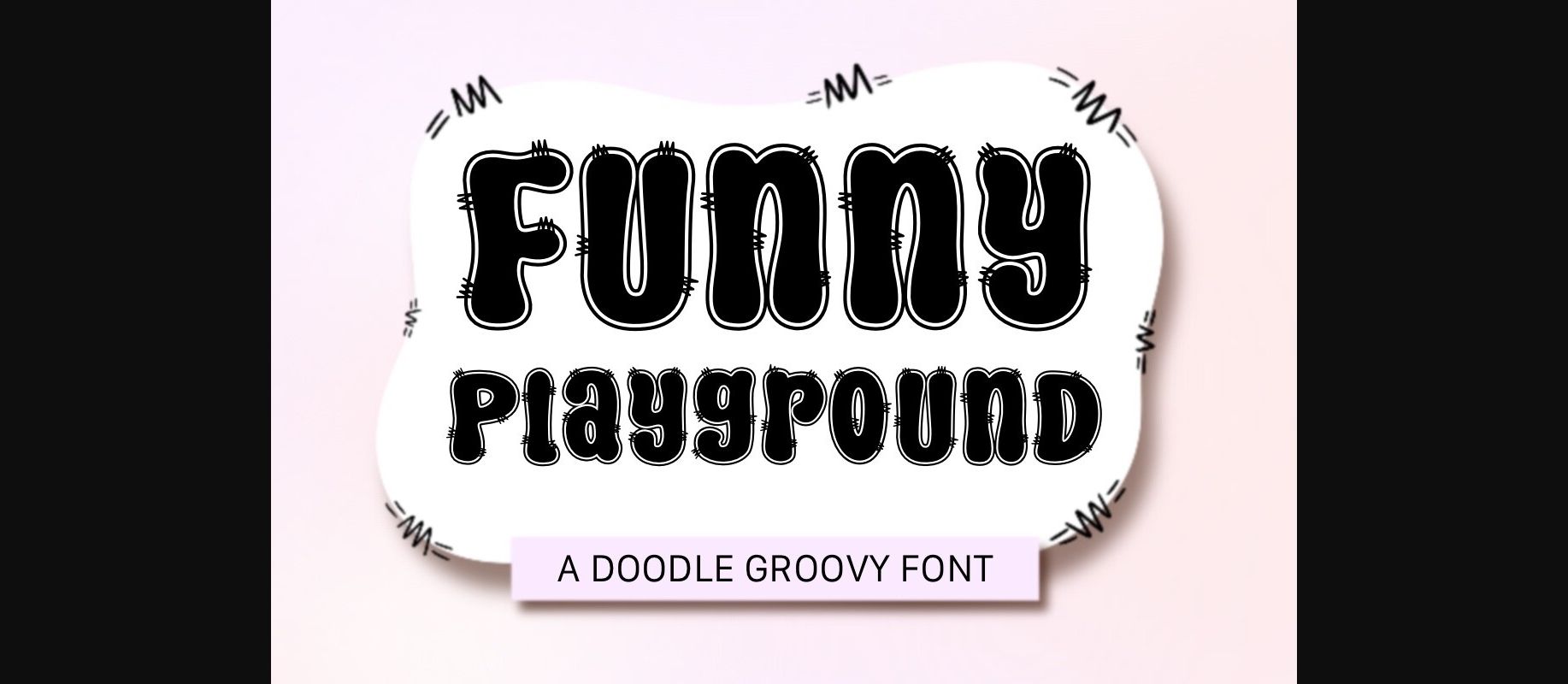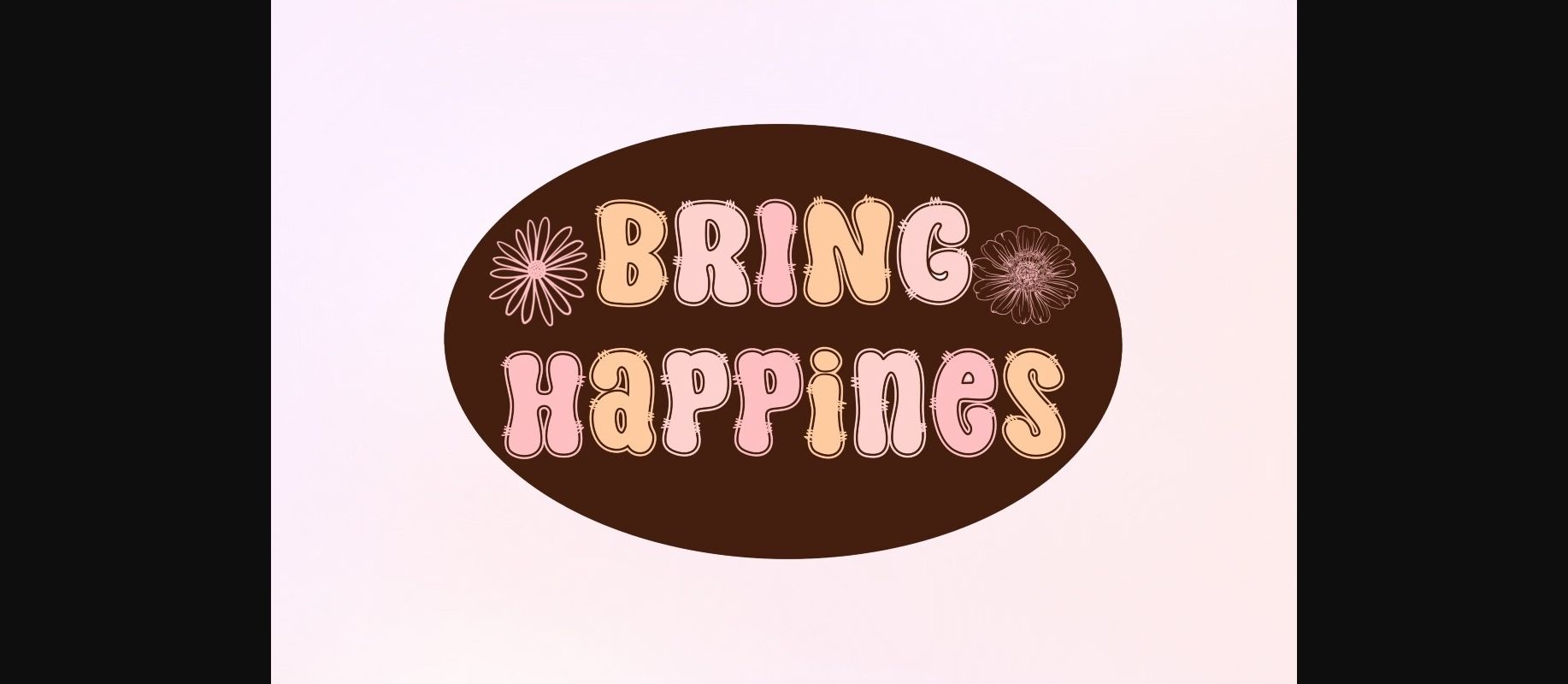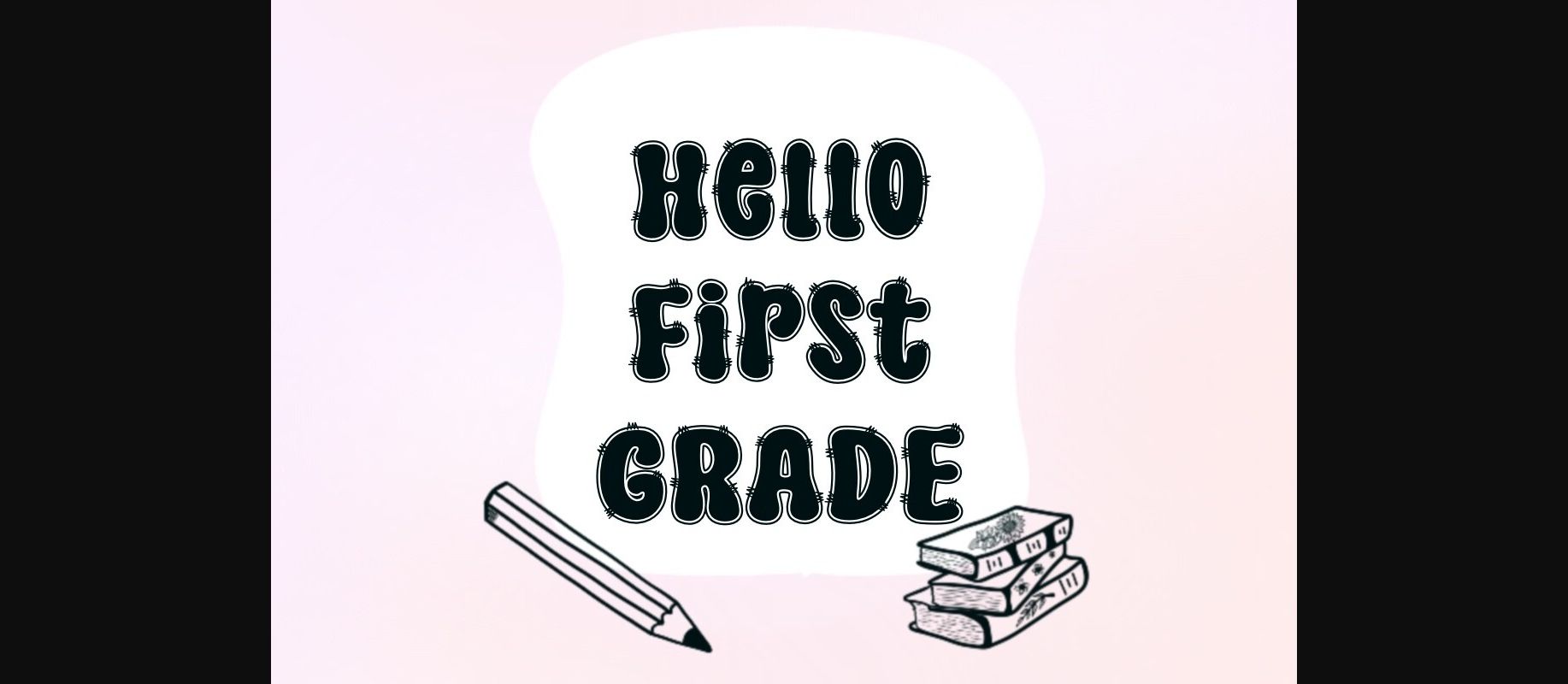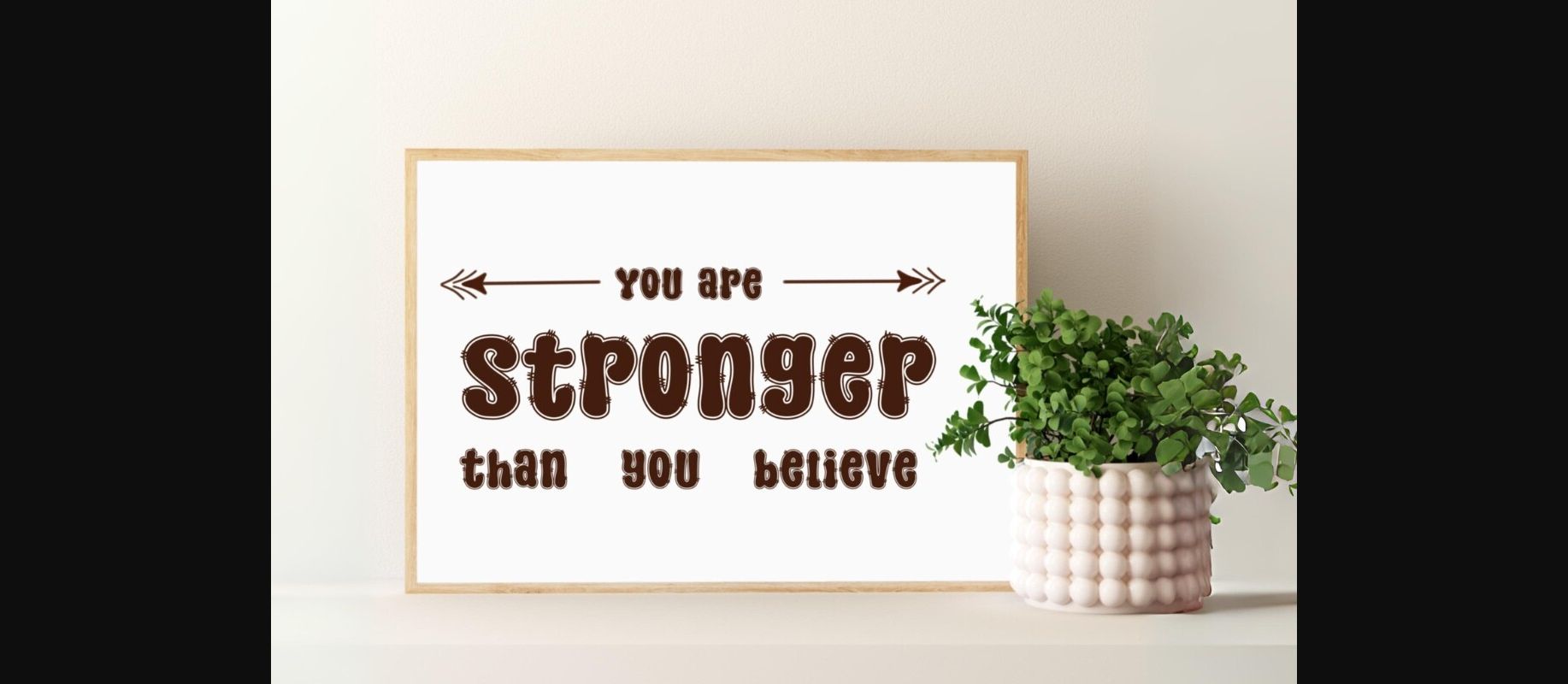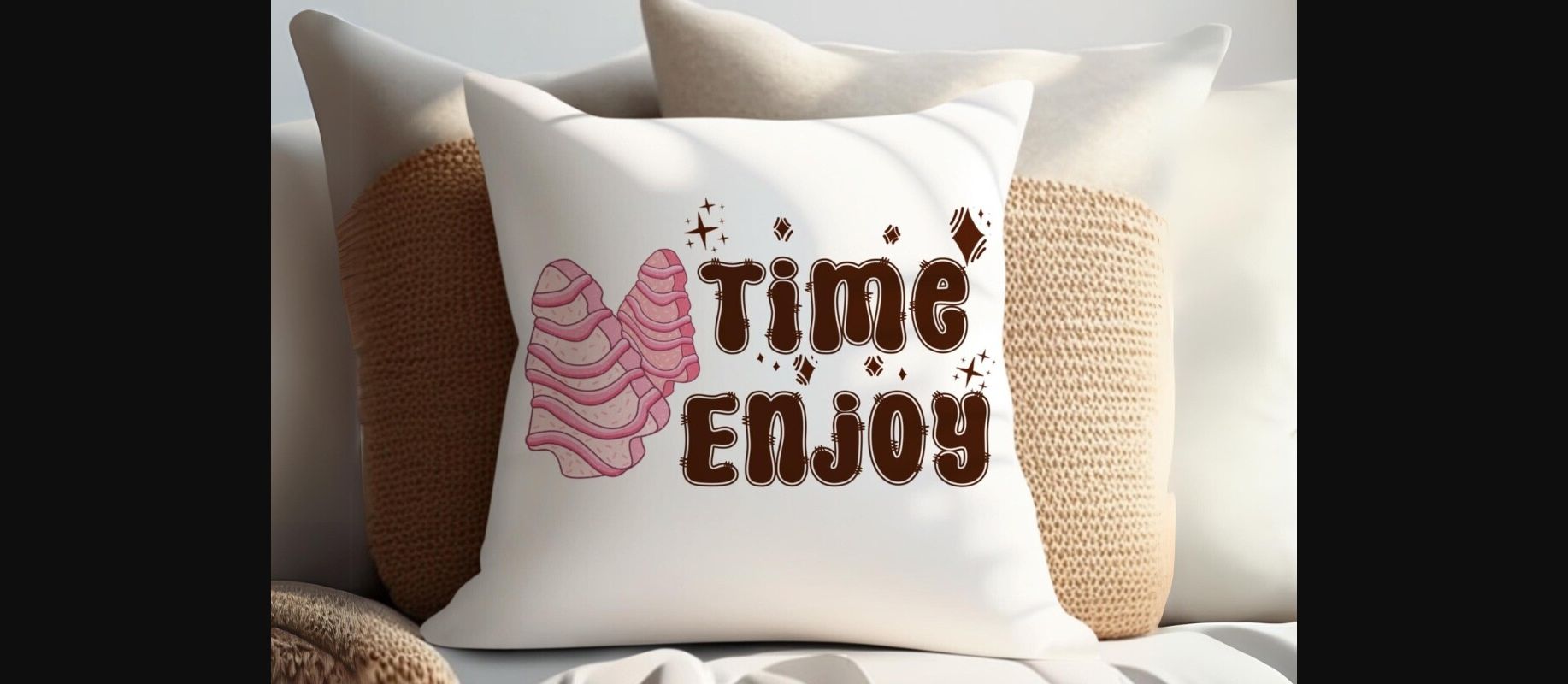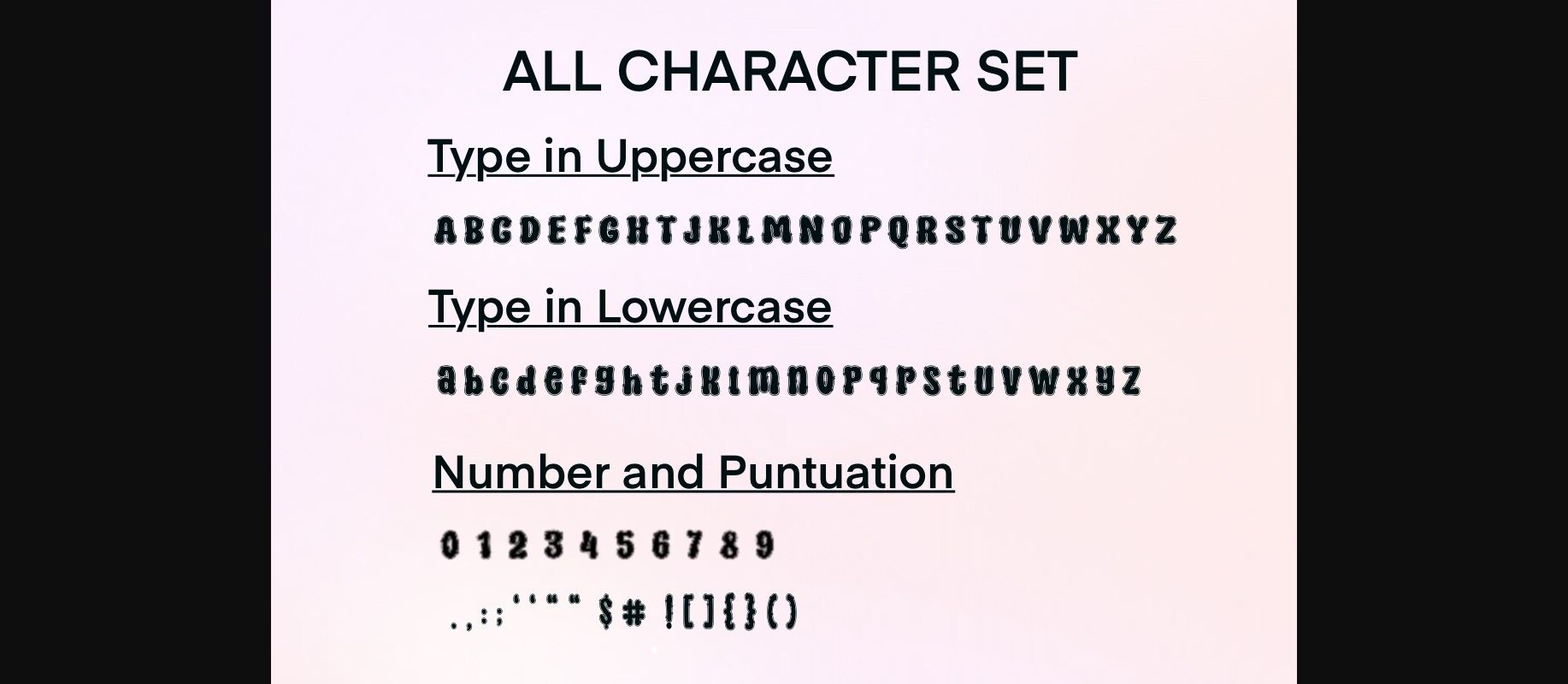
Funny Playground Font
About Funny Playground Font
Funny Playground Font is a fun groovy decorative font.Its doodle and playful design.casual charm will help you create lovely friendly designs. It is perfect for creating a wide variety of designs, such as banners, social media posts, cards, content, mugs, t-shirt designs, stationery, bags, hats, pillows, stickers, and much more.Masterfully designed to become a true favorite, this font has the potential to bring each of your creative ideas to the highest level!